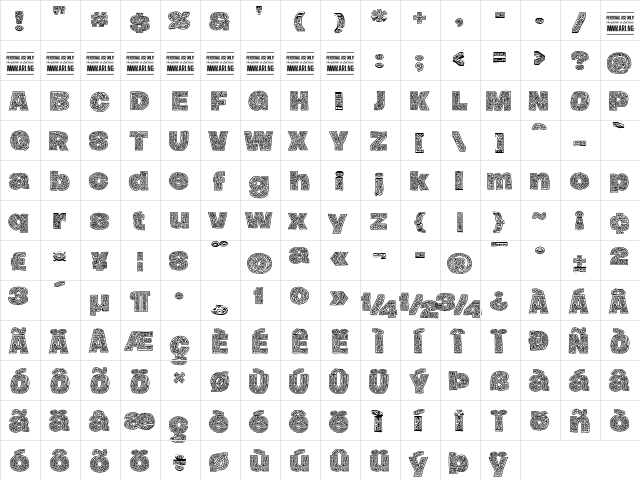
Hierograf PERSONAL USE Regular
| Foundry | Mans Greback |
| Designer | Mans Greback |
Design Context for Hierograf PERSONAL USE Typeface
Hierograf PERSONAL USE is a composed and adaptable typeface that performs quietly and consistently across a wide range of design contexts.